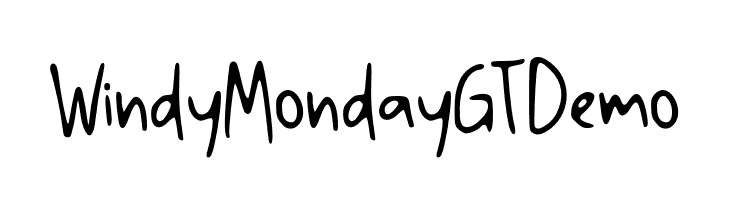
A bold, decorative font with embedded target symbols, perfect for creative projects.
( Fonts by HansCo )
A playful and whimsical script font with decorative swirls and interconnected letters.
( Fonts by twinletter )
A playful, bold font with whimsical curls and swirls.
( Fonts by Vunira Design )
A whimsical, decorative font with bold, intricate loops and curls.
( Fonts by Vunira Design )
A playful, whimsical handwritten script font with decorative loops and curls.
( Fonts by Kurnia Setyadi )
A bold, playful font with rounded, hand-drawn characters.
( Fonts by Kurnia Setyadi )
A bold, rounded font with a playful and friendly style.
( Fonts by Kurnia Setyadi )
A playful, bold, and hand-drawn style font with a whimsical touch.
( Fonts by Tigadestd )
A playful, bold font with rounded, thick strokes and a whimsical, friendly appearance.
( Fonts by Kurnia Setyadi )
A playful, hand-drawn font with bold, rounded characters.
( Fonts by Kurnia Setyadi )
A playful, hand-drawn font with rounded, bold characters and a whimsical style.
( Fonts by Kurnia Setyadi )
A playful, bold font with rounded strokes and smooth curves.